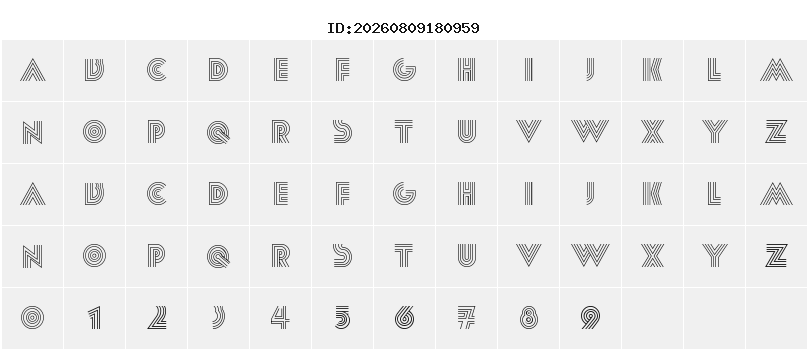
• Font Name: Paralis
• Full Font Name: Paralis
• Version: Version 1.00 January 27, 2013, Didik Pratikno
About Paralis.ttf
Paralis.ttf is a modern, elegant sans-serif font designed for ultimate readability and visual harmony. Perfect for branding, headlines, web design, and print materials.